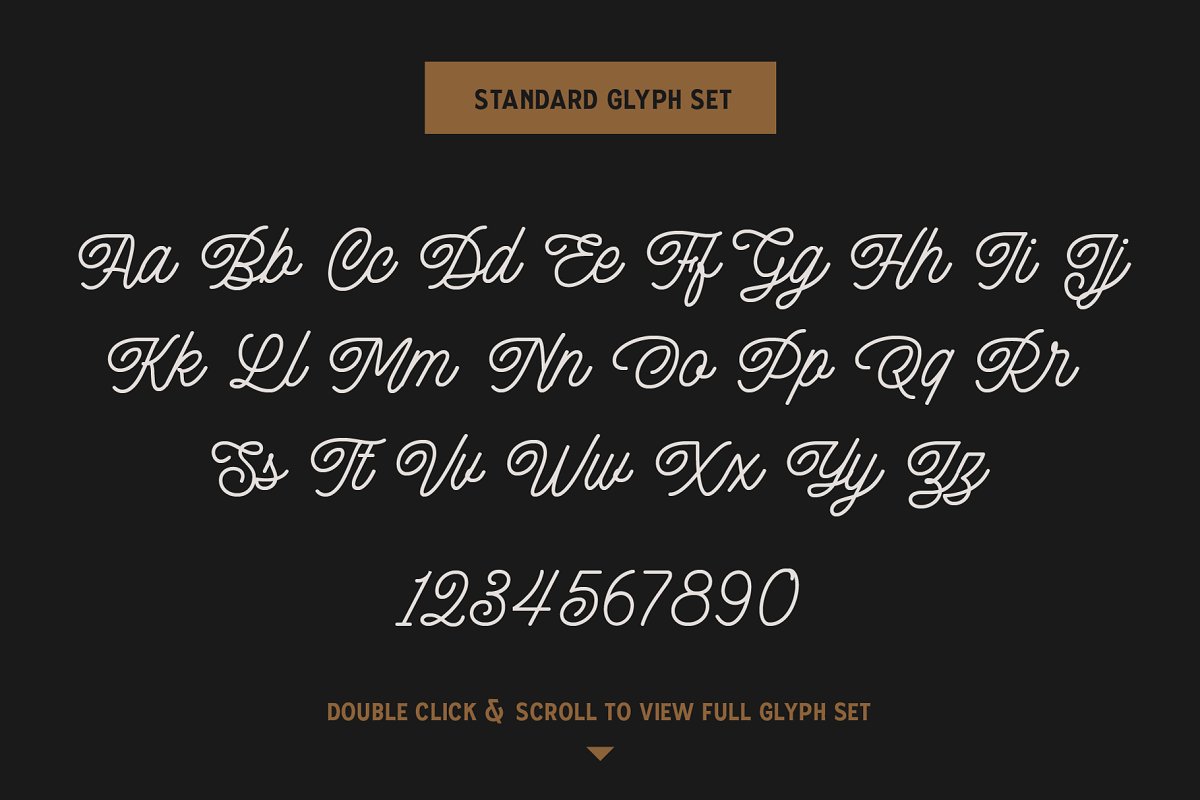
About the The Boutique Cursive Monoline
The Boutique CursiveA super versatile monoline script typeface that includes tons of alternate decorative characters, Give every word in each project it’s own personality with the ability to choose between a variety of characters and create stunning type, What’s included?3 Styles (Regular, Inky, Stamp)TTF & OTF IncludedTons of alternates & ligaturesWeb Font Kit